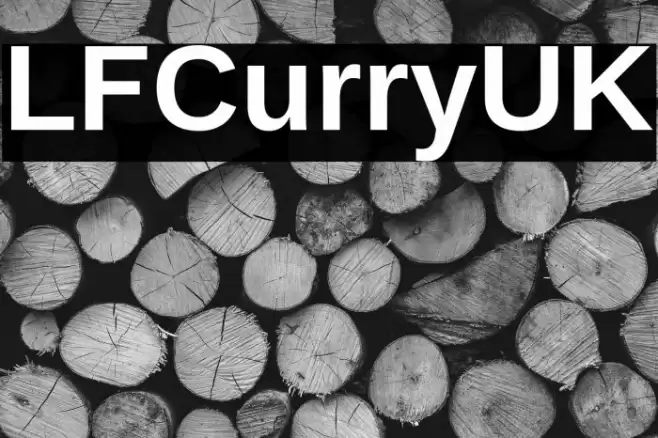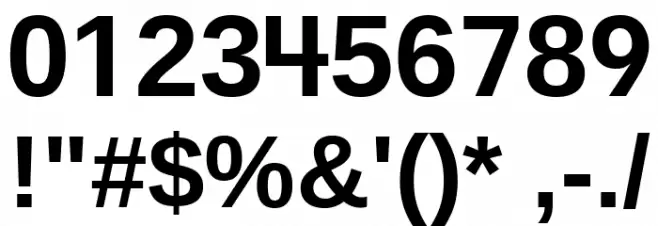
LFCurryUK Font
LFCurryUK Description
This font features a clean and modern sans-serif design, characterized by its bold and uniform stroke weight. The characters are well-proportioned with a consistent height, offering excellent readability. The uppercase letters are slightly taller than the lowercase, providing a balanced visual hierarchy. The numerals are clear and distinct, making them suitable for both digital and print media. Special characters are well-integrated, maintaining the font's overall aesthetic. The design is versatile, making it suitable for a variety of applications, from headlines to body text.
A bold, modern sans-serif font with excellent readability from Sans Serif fonts.